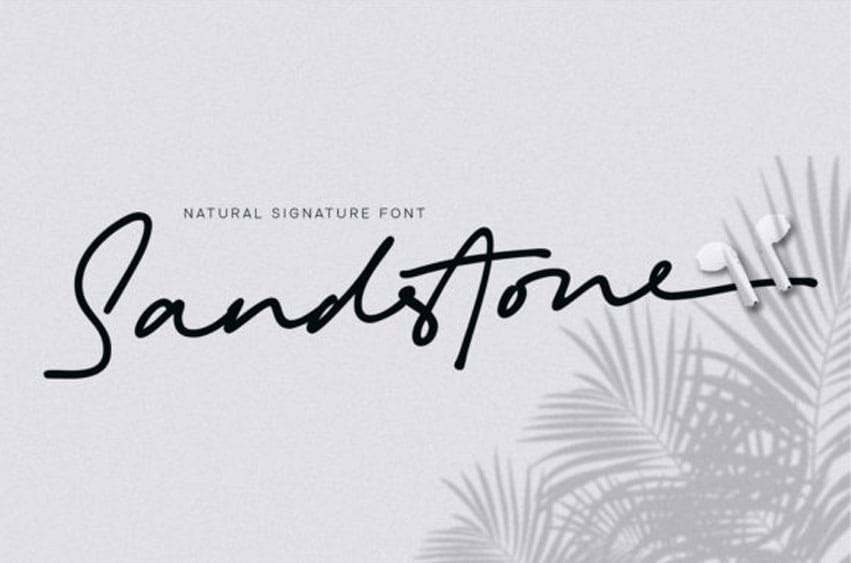
Sandstone Font is a relaxed and flowing handwritten font. It looks lovely on wedding invitations, thank you cards, quotes, greeting cards, logos, business cards, and every other design that needs a personalized touch.